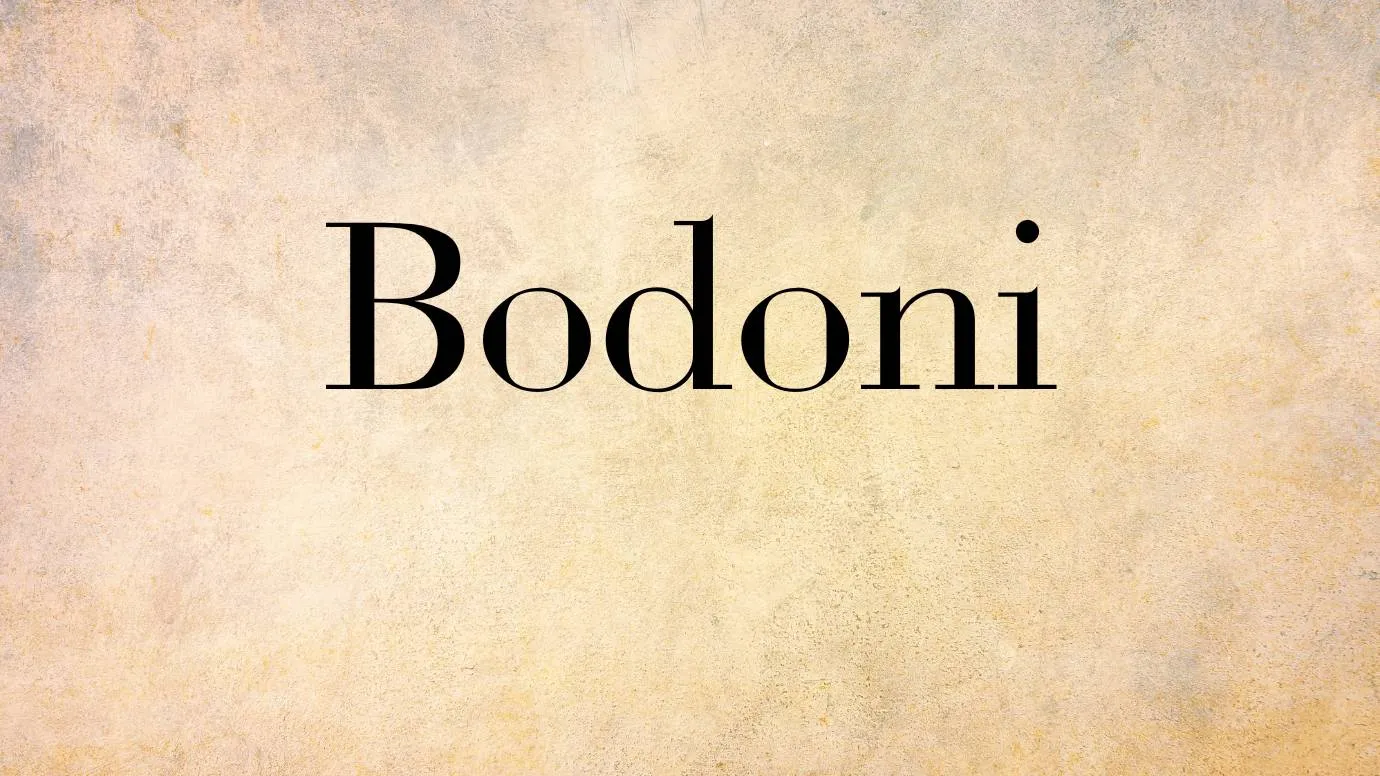
Bodoni Font Family is a typeface characterized by its serif design. It was created by the Italian font designer Giambattista Bodoni. Originating in the late 18th century, it has since inspired numerous variations such as LTC Bodoni 175, Bauer Bodoni, and Berthold Bodoni Antiqua, among others.